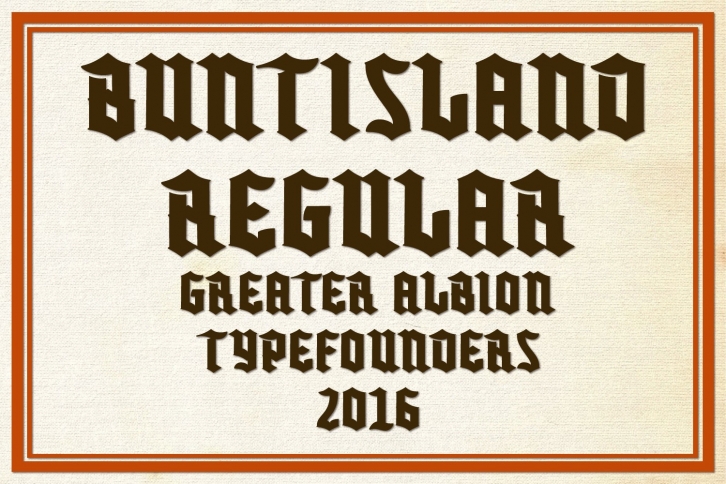
Buntisland Regular is a beautiful font that was designed by Greater Albion TypeFounders. It's a great choice for designers and creatives who need such a font. It was released on October 31, 2016 and the file size is 1.81 MB. Buntisland Regular may give a more youthful, expressive and casual look to your project. It is a very beautiful, refined, elegant, and high-quality font.